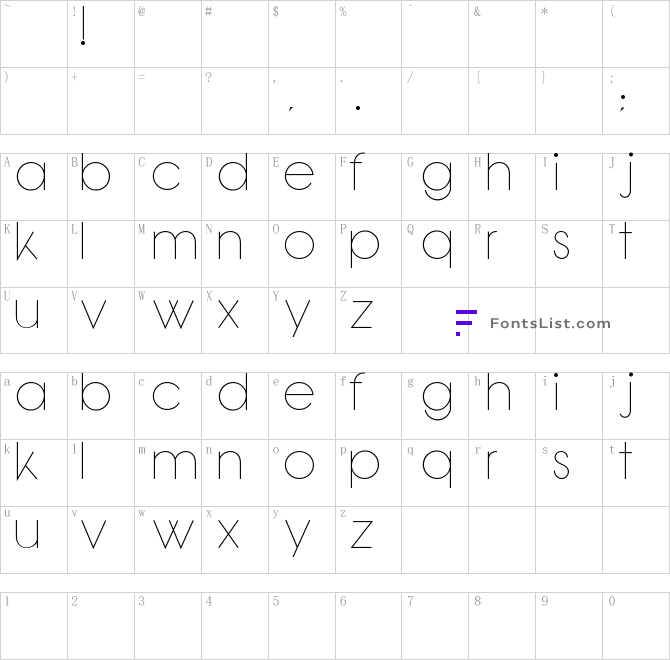
- Font Name:Bondoluo Peek
- Full Name:ATO Bondoluo Peek
ATO-Bondoluo-Peek.ttf is a very beautiful artistic font, ATO-Bondoluo-Peek.ttf is widely used in the design and printing of various books and pictures,ATO-Bondoluo-Peek.ttf has a strong visual impact,ATO-Bondoluo-Peek.ttf is a commonly used font in newspapers, magazines and books, and is used in posters, e-commerce Poster design, store design, logo design, font design and other fields.ATO-Bondoluo-Peek.